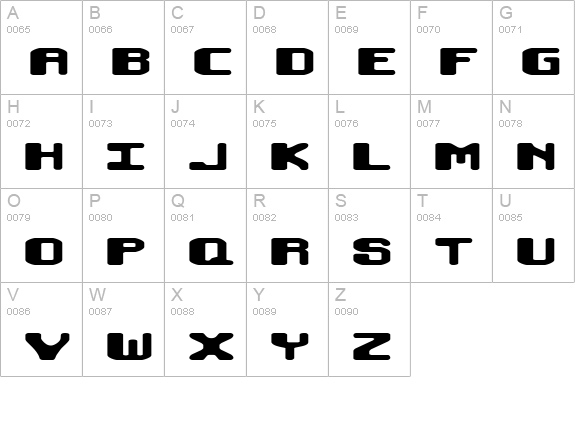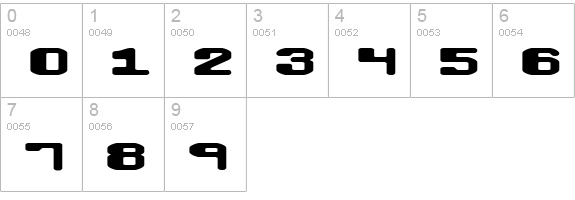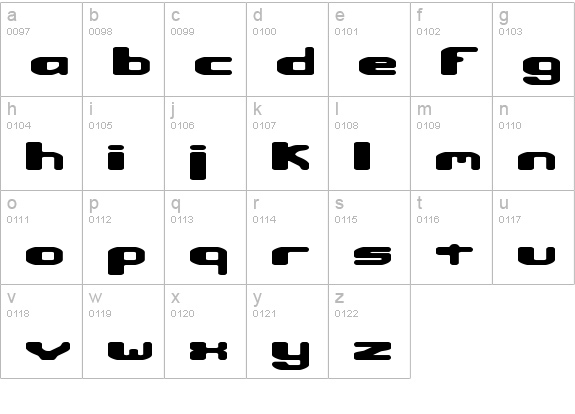
Macropsia (BRK) Font Details
Macropsia (BRK) font is a visually stunning typeface that is sure to captivate and inspire. With its unique and eye-catching design, it adds a touch of elegance and sophistication to any project. The letters are bold and beautifully crafted, with intricate details that make them stand out on the page. One of the best things about Macropsia (BRK) font is that it is free. Yes, you heard that right - this incredible font is freely available to download at FontsMarket.com. Whether you are a professional designer or a casual user, you can enjoy the benefits of this remarkable font without spending a dime. Not only does Macropsia (BRK) font offer an exceptional aesthetic appeal, but it also provides excellent readability. The letters are perfectly balanced, ensuring that every word is clear and easy to read. This is especially important for projects where conveying information is crucial. Macropsia (BRK) font is versatile, making it suitable for a wide range of applications. Whether you are creating a logo, designing a website, or working on a print project, this font will elevate your work to new heights. Its modern yet timeless style ensures that it will remain relevant and impactful for years to come. So why wait? Head over to FontsMarket.com and download Macropsia (BRK) font today. Experience the beauty and functionality of this font and take your designs to the next level. With its free availability and exceptional qualities, it's a font that you simply can't afford to miss out on.